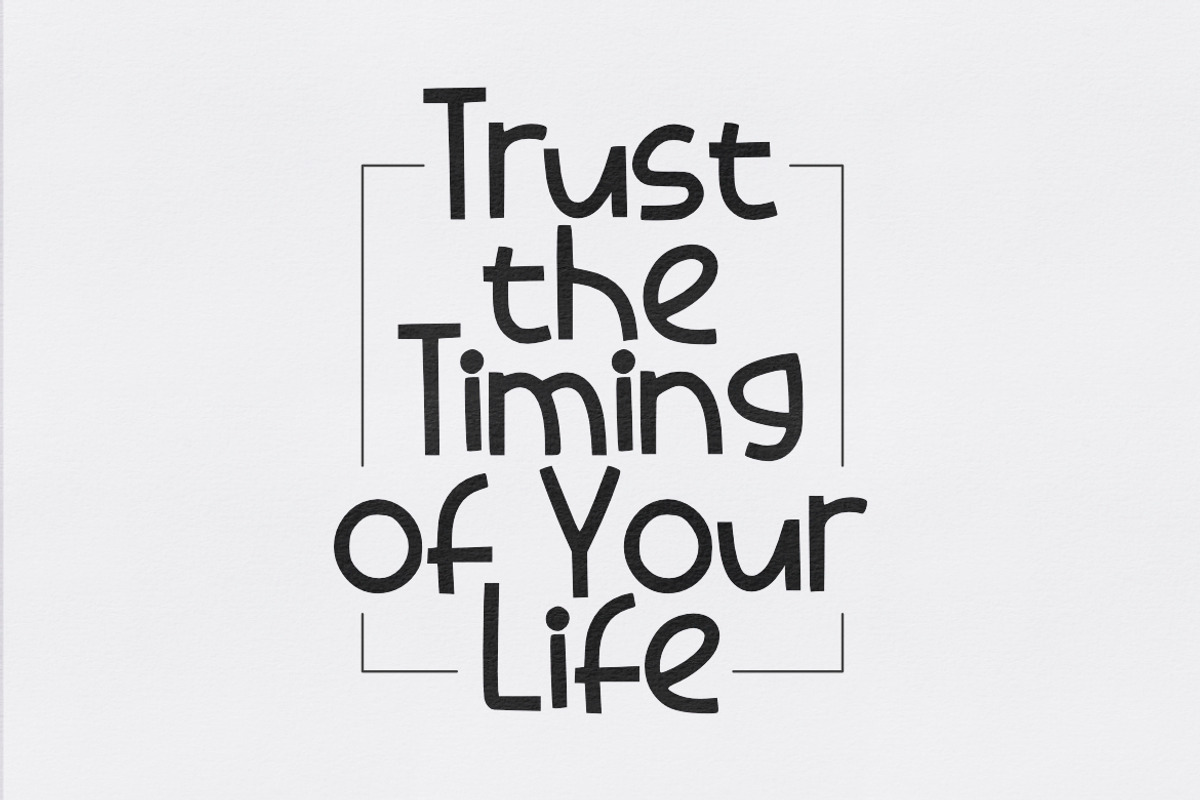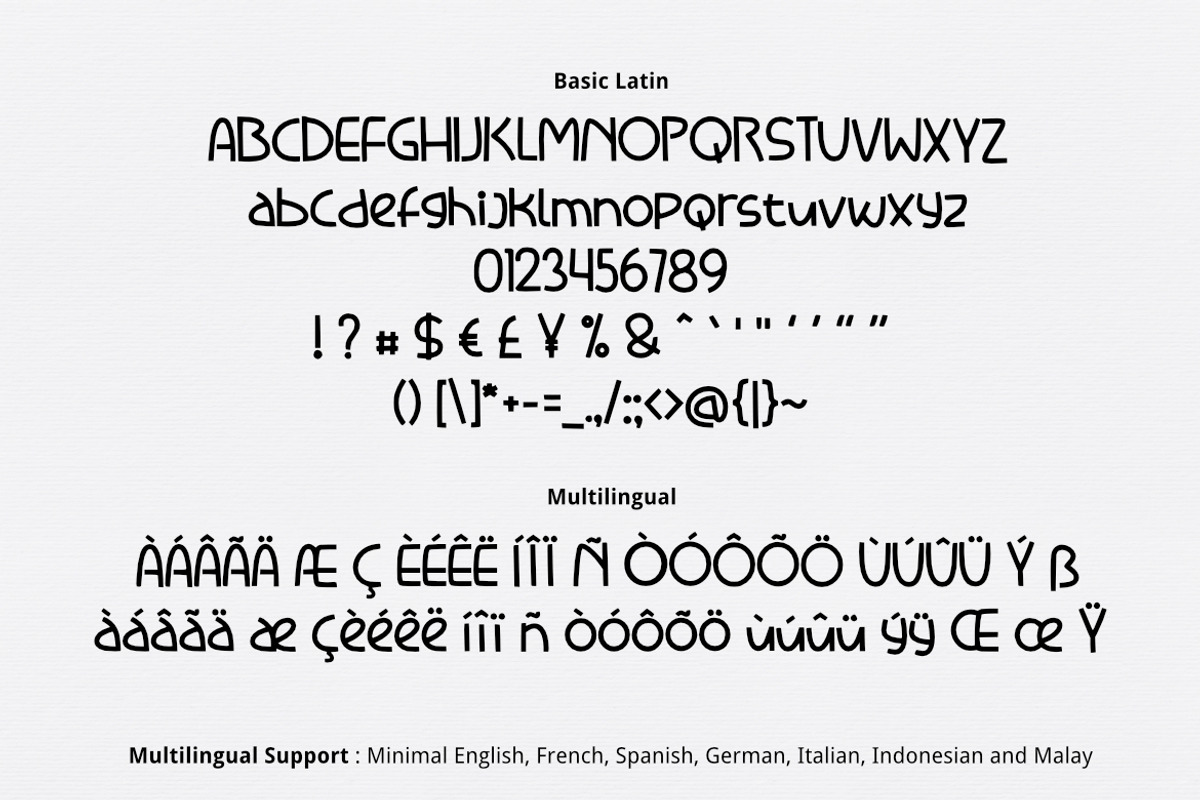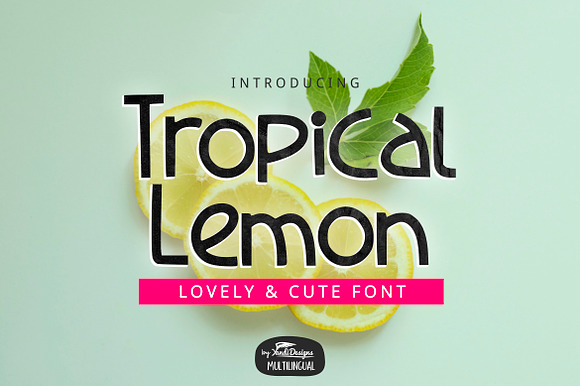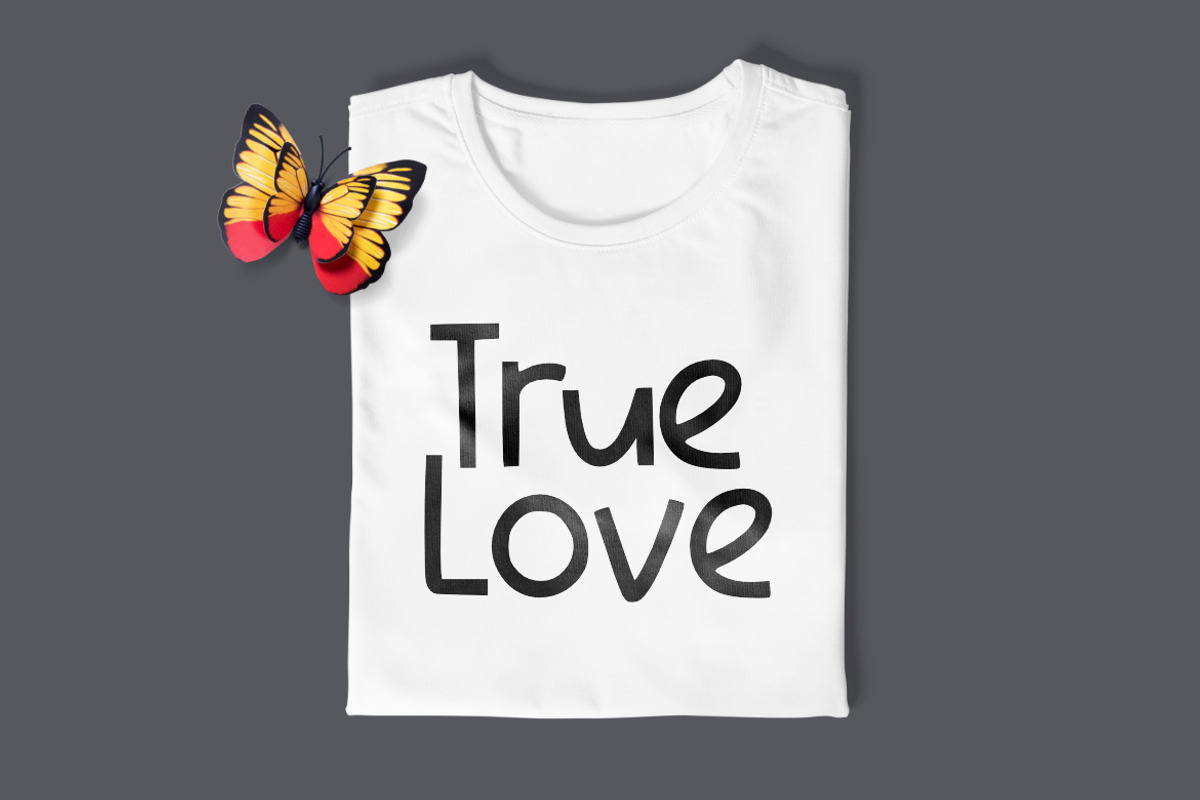
Tropical Lemon Font
Tropical Lemon Font is lovely cute multipurpose handmade font, suitable for many project children book, quotes, logo , heading , title etc.
Basic Latin (Standard English character , number, symbol) Multilingual Support (minimal English, French, Spanish, German, Italian, Indonesian, Malay)
Why Tropical Lemon Font is worth a look
Tropical Lemon Font by YandiDesigns fits naturally into Branding, posters, packaging, typography.